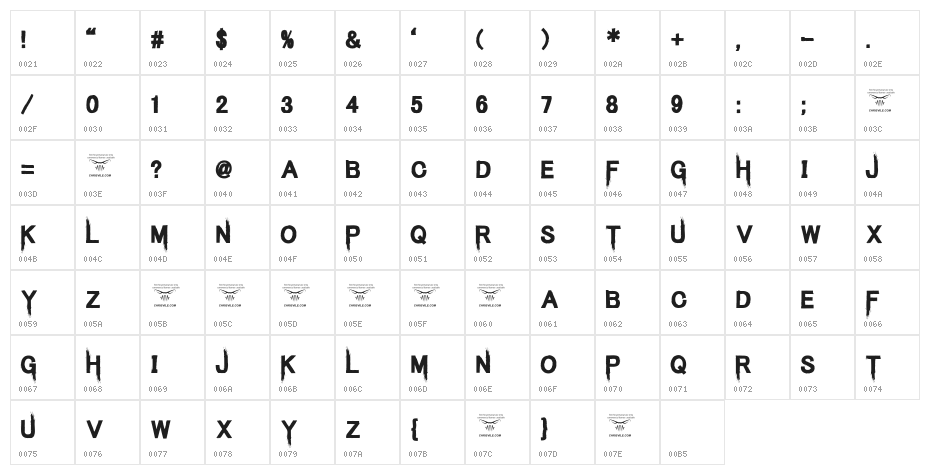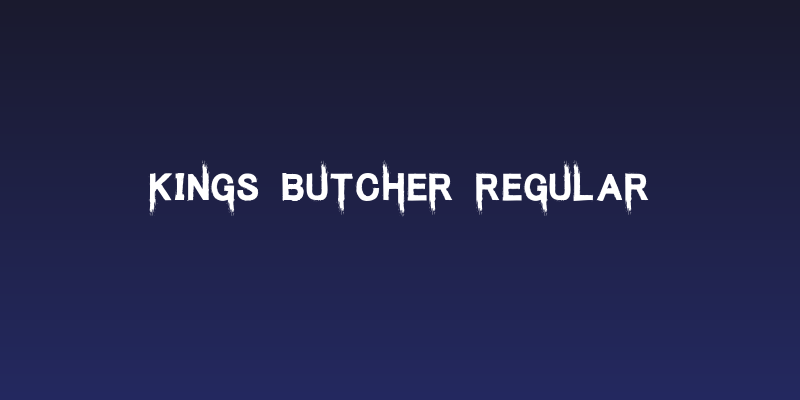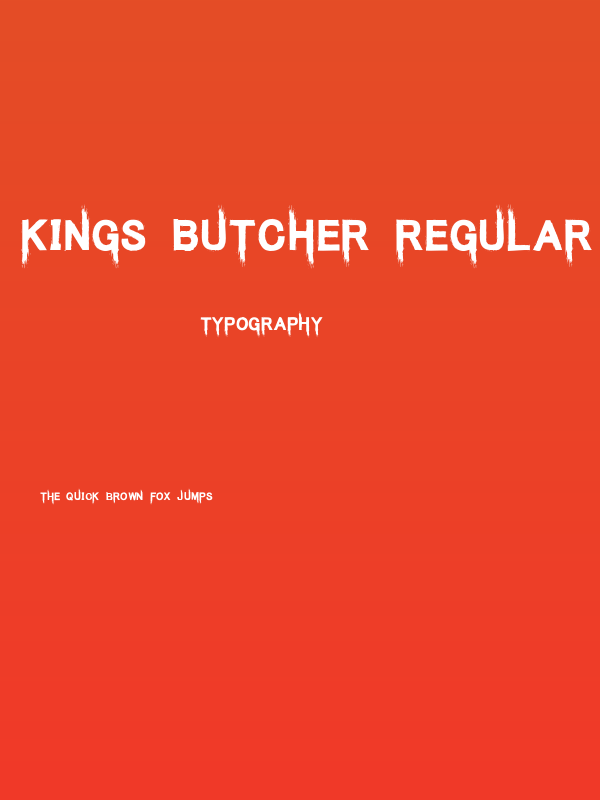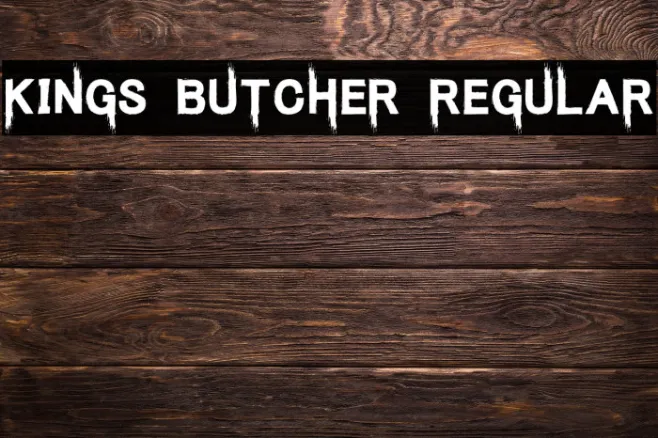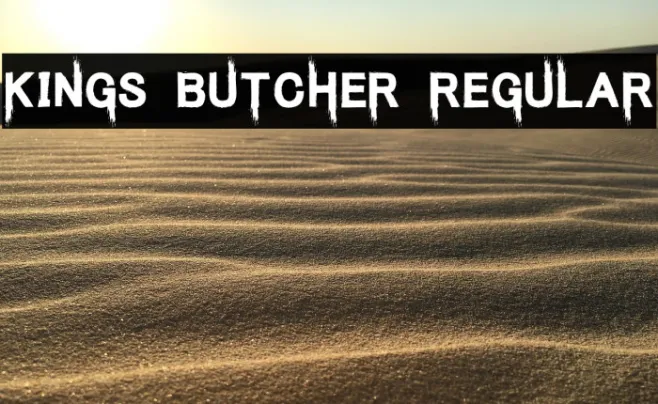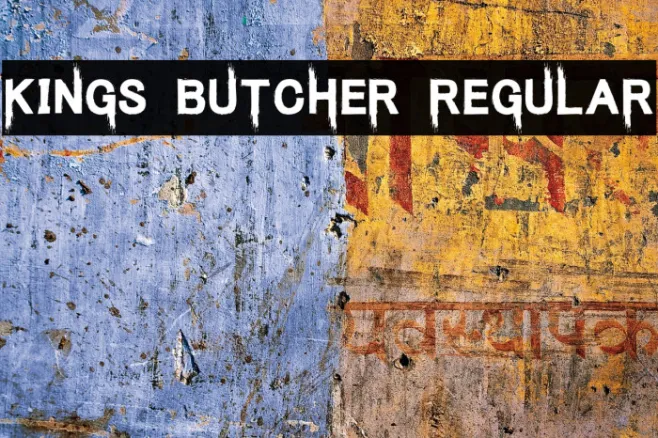
Kings Butcher Regular Font
Kings Butcher Regular Description
This font features a bold and rugged style with a distressed, grunge-like appearance. The characters have a rough, textured edge that gives them a hand-painted look, reminiscent of brush strokes or worn-out signage. The uppercase and lowercase letters maintain a consistent height, contributing to a uniform appearance across the text. The numerals and special characters follow the same design principles, ensuring a cohesive look throughout. This font's unique style makes it stand out, perfect for projects that require a bold and edgy aesthetic.
| Proposed Projects | Ideal for posters, album covers, branding for edgy or alternative products, and any design needing a bold, grunge aesthetic. |